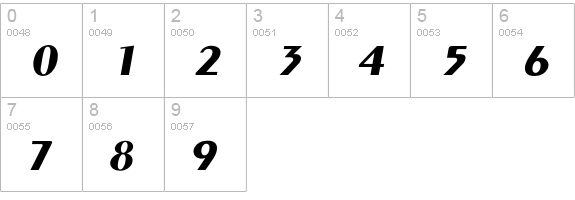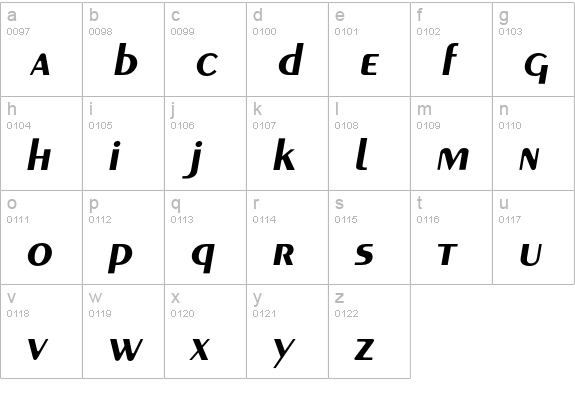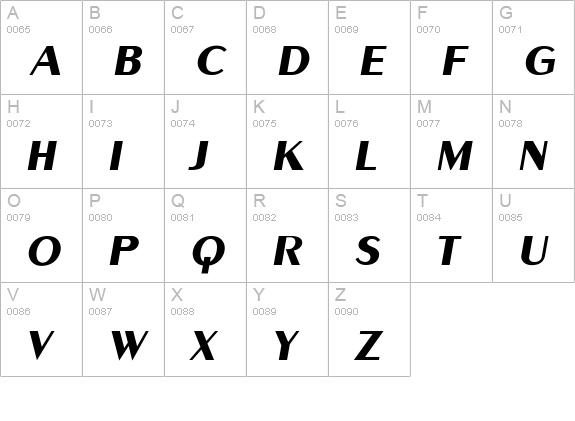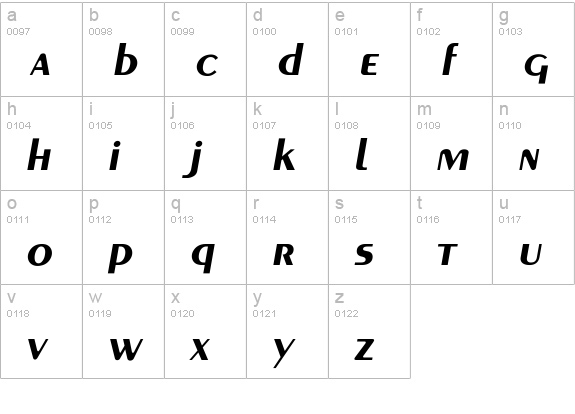
GreyhoundBoldItalic is a sleek and sophisticated typeface that combines the elegance of a classic serif with a modern twist. The bold italic style adds a touch of flair and drama to any design, making it perfect for conveying a sense of luxury and exclusivity. With its sharp, clean lines and graceful curves, this font is sure to make a statement in any project. But the best part? GreyhoundBoldItalic is completely free to download at FontsMarket.com. That's right, you can add this stunning font to your collection without spending a single penny. So why wait? Elevate your designs with GreyhoundBoldItalic today and see the difference it can make.